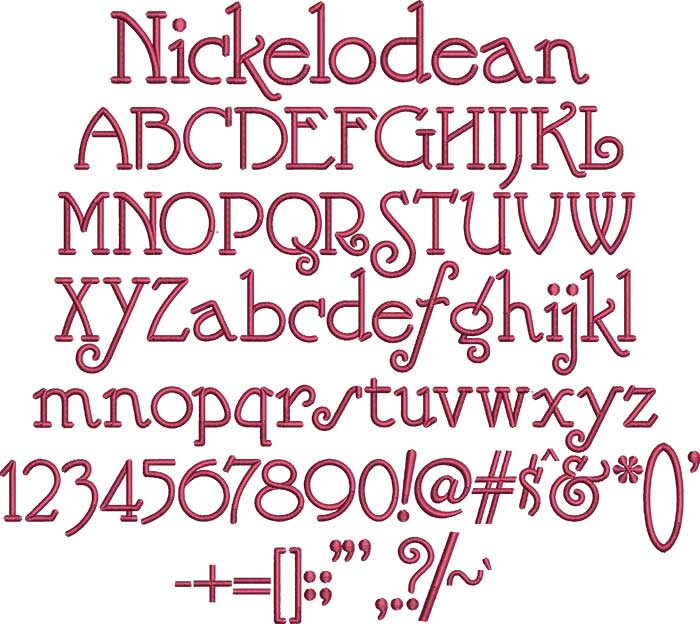
BX Embroidery Font: Nickelodean
BX Embroidery Font: Nickelodean Font Bundle (4 sizes) is a stylized, decorative serif machine embroidery font that includes A-Z, a-z, 0-9 and punctuation; 4 sizes.
BX Embroidery Font: Nickelodean is a stylized, decorative serif machine embroidery font that includes A-Z, a-z, 0-9 and the following punctuation: !@#$^&*()-+=[]:;”‘<>,.?/ (86 total characters).
Each character in this alphabet is individually manually digitized; we do not use a TrueType to Stitches conversion utility to create our fonts. Additionally, stitch attributes such as stitch type, density, compensation, and underlay are optimized for each size available. Choose the size closest to what you need. Shrinking the smallest size is not recommended.
Our fonts were manually digitized; we do not use a TrueType to Stitches conversion utility to create our fonts. Plus, stitch attributes such as density, compensation, and underlay are optimized for each size available.